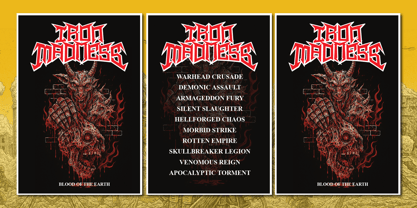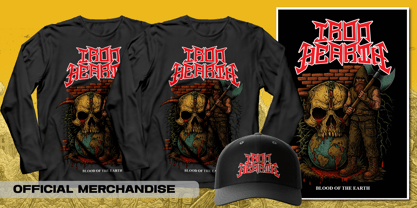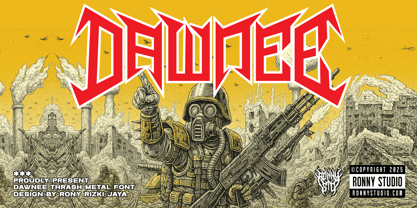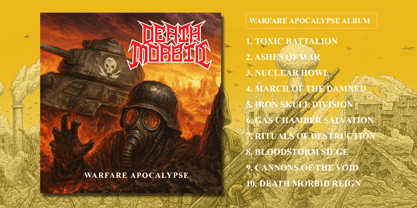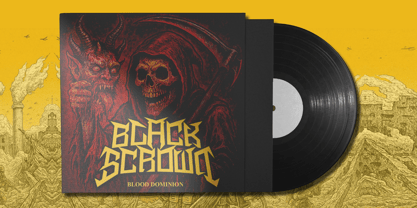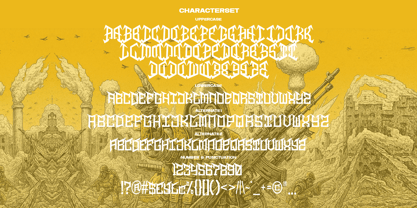
Dawnee
by Ronny Studio
The Dawnee Font Family was designed by Rony Rizki Jaya and published by Ronny Studio. Dawnee contains 1 styles.
Introducing: Dawnee – Thrash Metal Display Font Unleash raw power into your designs with Dawnee, a bold thrash metal display font packed with sharp edges, aggressive strokes, and heavy underground energy. Inspired by metal band logos, war-themed artwork, and apocalyptic design, Dawnee is perfect for projects that demand an intense and rebellious look. With its extreme letterforms and unique style, Dawnee creates a striking visual impact that works seamlessly across music branding, posters, and merchandise. Whether you’re designing a metal band logo, gig poster, album cover, or streetwear graphic, Dawnee delivers the ultimate hardcore vibe.